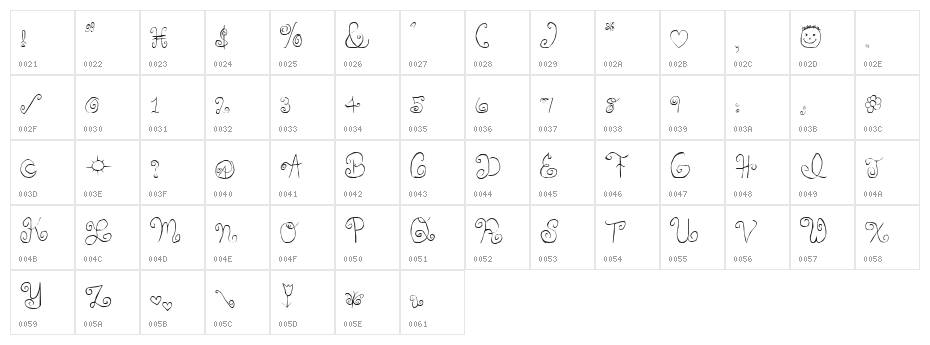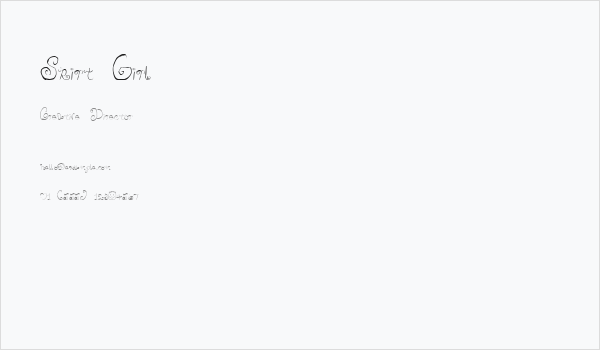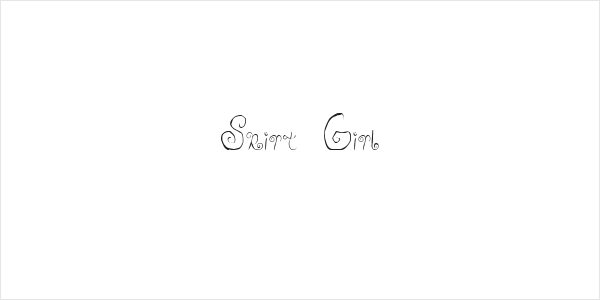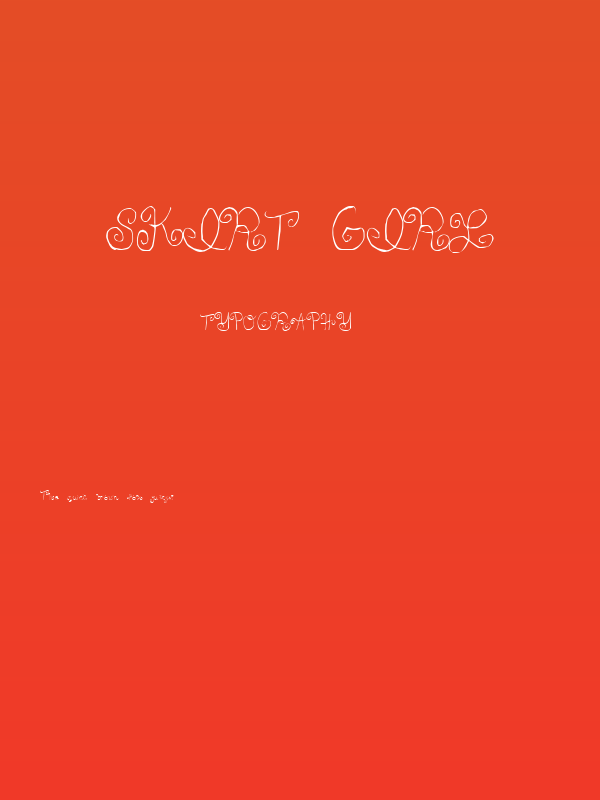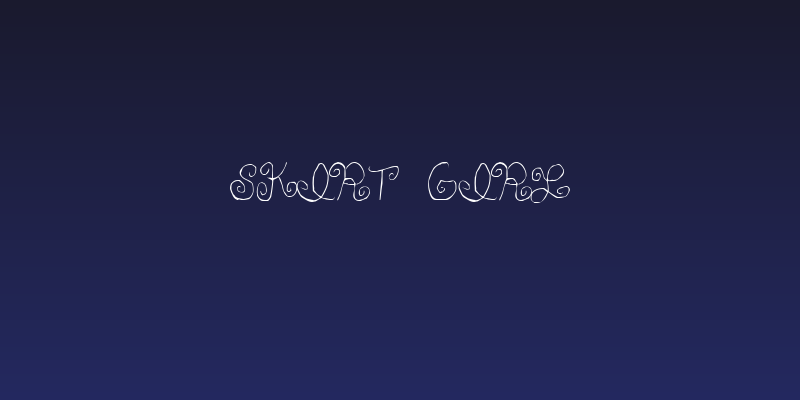
Skirt Girl Font
Skirt Girl Description
This whimsical and playful font features a unique, curly design with intricate swirls and loops. Each character is adorned with decorative elements, giving it a hand-drawn, artistic feel. The uppercase letters are particularly elaborate, with exaggerated curves and flourishes, while the lowercase letters maintain a more subtle yet consistent style. Numbers and special characters follow the same decorative theme, adding to the font's cohesive appearance. The overall look is light-hearted and imaginative, making it perfect for creative projects that require a touch of whimsy.
| Proposed Projects | Ideal for children's books, playful invitations, greeting cards, and creative branding projects. |